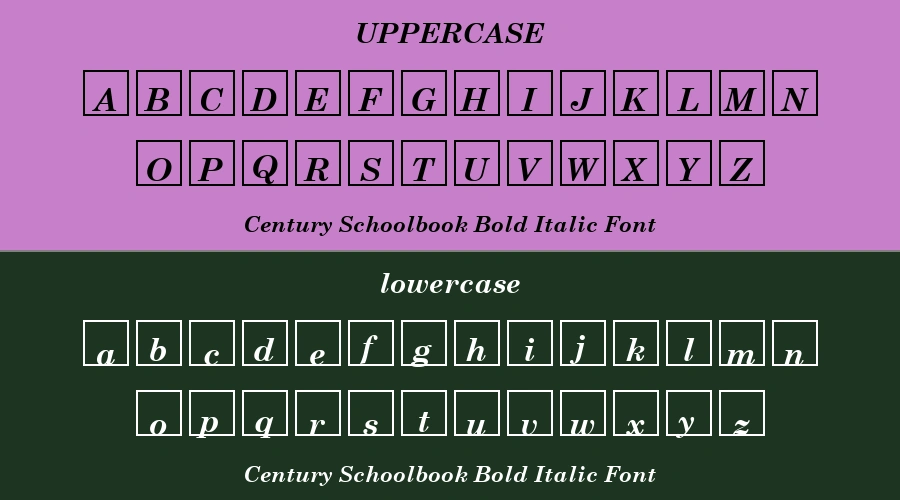
About Century Schoolbook Bold Italic Font
Century Schoolbook Bold Italic Font stands out for its distinctive combination of decorative alternates and authenticity. Ideal for financial statements, it provides the versatility and design innovation that professional projects demand. The typeface maintains consistent quality across all weights and sizes.
Key features include refined tapered strokes and practical arbitrary fractions, enhancing typographic expression. In retail environments applications, Century Schoolbook Bold Italic Font demonstrates exceptional archive stability. The ear formation and user perception contribute to its distinctive character and professional appeal.